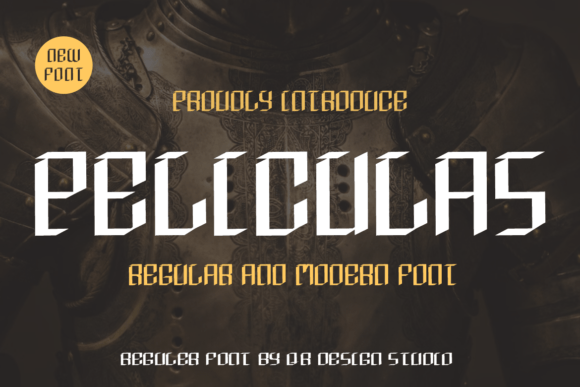
Peliculas Font: A Bold and Authentic Display Font for Your Creative Projects
In the world of typography, fonts play a crucial role in conveying the tone and personality of a brand, product, or creative project. When it comes to making a statement, a bold and authentic display font is essential. This is where Peliculas Font comes into play. In this article, we’ll explore the features, benefits, and uses of Peliculas Font, a stunning display font perfect for web design, social media, flyers, cards, posters, movie titles, and more.
What is Peliculas Font?
Peliculas Font is a bold and authentic display font designed to make a statement. Its unique and captivating design makes it perfect for creative projects that require a touch of elegance and sophistication. The font’s bold and condensed style ensures that your message stands out, grabbing the attention of your audience.
Key Features of Peliculas Font
- Bold and Authentic Design: Peliculas Font boasts a bold and authentic design, making it perfect for display purposes.
- Condensed Style: The font’s condensed style allows for easy reading, even at smaller sizes.
- High Versatility: Peliculas Font is suitable for a wide range of creative projects, from web design to print materials.
- Easy to Read: Despite its bold style, Peliculas Font remains easy to read, ensuring your message is conveyed effectively.
Uses of Peliculas Font
Peliculas Font is an incredibly versatile font, suitable for various creative projects. Here are some of the ways you can use Peliculas Font:
- Web Design: Use Peliculas Font to create stunning website headers, titles, and emphasis text.
- Social Media: Make your social media posts stand out with Peliculas Font, perfect for attention-grabbing headlines and titles.
- Flyers and Brochures: Add a touch of elegance to your flyers and brochures with Peliculas Font.
- Cards and Invitations: Use Peliculas Font to create beautiful and eye-catching cards and invitations.
- Posters: Peliculas Font is perfect for creating stunning posters that grab attention.
- Movie Titles: Use Peliculas Font to create captivating movie titles and taglines.
Benefits of Using Peliculas Font
Using Peliculas Font offers numerous benefits, including:
- Instant Recognition: Peliculas Font’s bold and authentic design ensures instant recognition and attention.
- Professionalism: The font’s elegant and sophisticated design conveys professionalism and expertise.
- Versatility: Peliculas Font’s versatility allows you to use it across various creative projects.
- Time-Saving: With Peliculas Font, you can create stunning text-based designs quickly and efficiently.
Tips for Using Peliculas Font Effectively
To get the most out of Peliculas Font, follow these tips:
- Use it Sparingly: Use Peliculas Font sparingly to avoid overwhelming your design.
- Pair it with Other Fonts: Pair Peliculas Font with other fonts to create visual interest and hierarchy.
- Experiment with Colors: Experiment with different colors to find the perfect combination for your design.
- Keep it Legible: Ensure that your text remains legible, even at smaller sizes.
Peliculas Font is a bold and authentic display font perfect for creative projects that require a touch of elegance and sophistication. Its versatility, readability, and stunning design make it an excellent choice for web design, social media, flyers, cards, posters, movie titles, and more. By following the tips outlined in this article, you can effectively use Peliculas Font to elevate your designs and make a lasting impression on your audience.